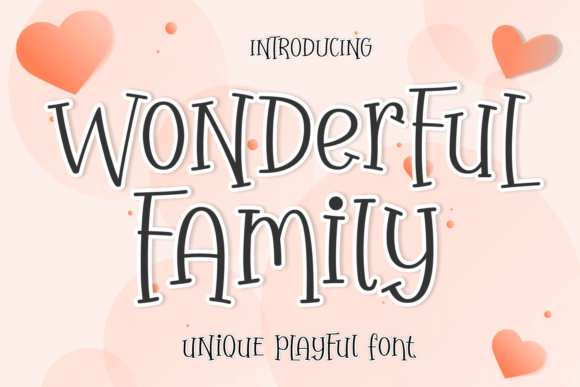
Unleash the magic of your words with the captivating beauty of Wonderful Family Font! A whimsical and enchanting display font, Wonderful Family adds an irresistible charm to your designs. Let its playful curves and enchanting strokes transport you to a realm of imagination and endless creativity.
Make your ebook covers burst with life and personality. Picture the title of your masterpiece, rendered with the captivating charm of Wonderful Family. Its playful nature will draw readers in, enticing them to delve into the world you've created. Elevate your designs with this delightful font, and create covers that beckon and intrigue.
Step into a world where imagination reigns supreme. Let Wonderful Family be your creative companion, transforming your projects into enchanting realms of wonder. Its playful essence will infuse your designs with a magical touch, capturing the hearts of your audience. Embrace the whimsical spirit of this font, and embark on a journey of artistic discovery.
With Wonderful Family, you'll find endless possibilities to express yourself. Whether crafting logos, branding materials, or any other creative endeavor, this font will add a touch of enchantment to your work. Its versatility knows no bounds, lending itself seamlessly to a symphony of design styles. Let your imagination soar, and allow Wonderful Family to paint a picture of beauty in all your projects.
Envision your designs adorned with this captivating font, a treasure trove of creative opportunities waiting to be explored. Discover the magic of Wonderful Family today, and embark on a journey of artistic enchantment!